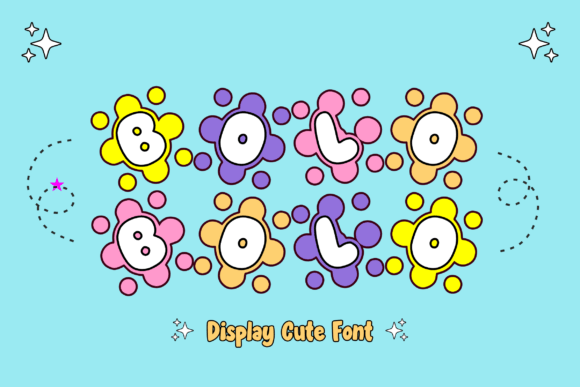
Bolo Bolo Font: Adding a Splash of Whimsy to Your Designs
In the world of typography, fonts play a crucial role in conveying the tone and personality of a design. Among the numerous font styles available, decorative fonts have gained immense popularity for their ability to add a touch of uniqueness and playfulness to various design projects. One such font that has caught the attention of designers and crafty enthusiasts alike is the “Bolo Bolo” font. This vibrant and lively decorative font is designed with a delightful polka dot theme, making it an ideal choice for those looking to infuse their designs with a dose of energy and whimsy.
What Makes Bolo Bolo Font Stand Out?
The “Bolo Bolo” font is not just another ordinary typeface. Its distinctive feature is the whimsically patterned typography, where each character is adorned with bouncy dots. This playful design element makes spotting letters a breeze, adding an element of fun to the text. The font’s unique style is perfect for designers who want to create eye-catching and engaging designs that stand out from the crowd.
Ideal for Various Design Projects
The “Bolo Bolo” font is incredibly versatile and can be used for a wide range of design projects. Here are some ideas to get you started:
- Sublimation Designs: Add a splash of unique style to sublimation designs, such as t-shirts, mugs, tote bags, and more.
- Animations: Breathe a dose of energy into animations with this fun and lively font.
- Comic Titles: Render comic titles even more engaging with the “Bolo Bolo” font’s playful design.
Benefits of Using Bolo Bolo Font
Using the “Bolo Bolo” font in your designs comes with several benefits:
- Unique Style: The font’s distinctive polka dot theme adds a touch of whimsy and playfulness to designs.
- Ease of Recognition: The bouncy dots on each character make it easy to spot letters, even for young audiences.
- Versatility: The font can be used for various design projects, from sublimation designs to animations and comic titles.
What Designers Say About Bolo Bolo Font
In conclusion, the “Bolo Bolo” font is a vibrant and lively decorative font that adds a splash of whimsy to designs. Its unique polka dot theme, ease of recognition, and versatility make it an ideal choice for various design projects. By using this font, designers can create eye-catching and engaging designs that stand out from the crowd.